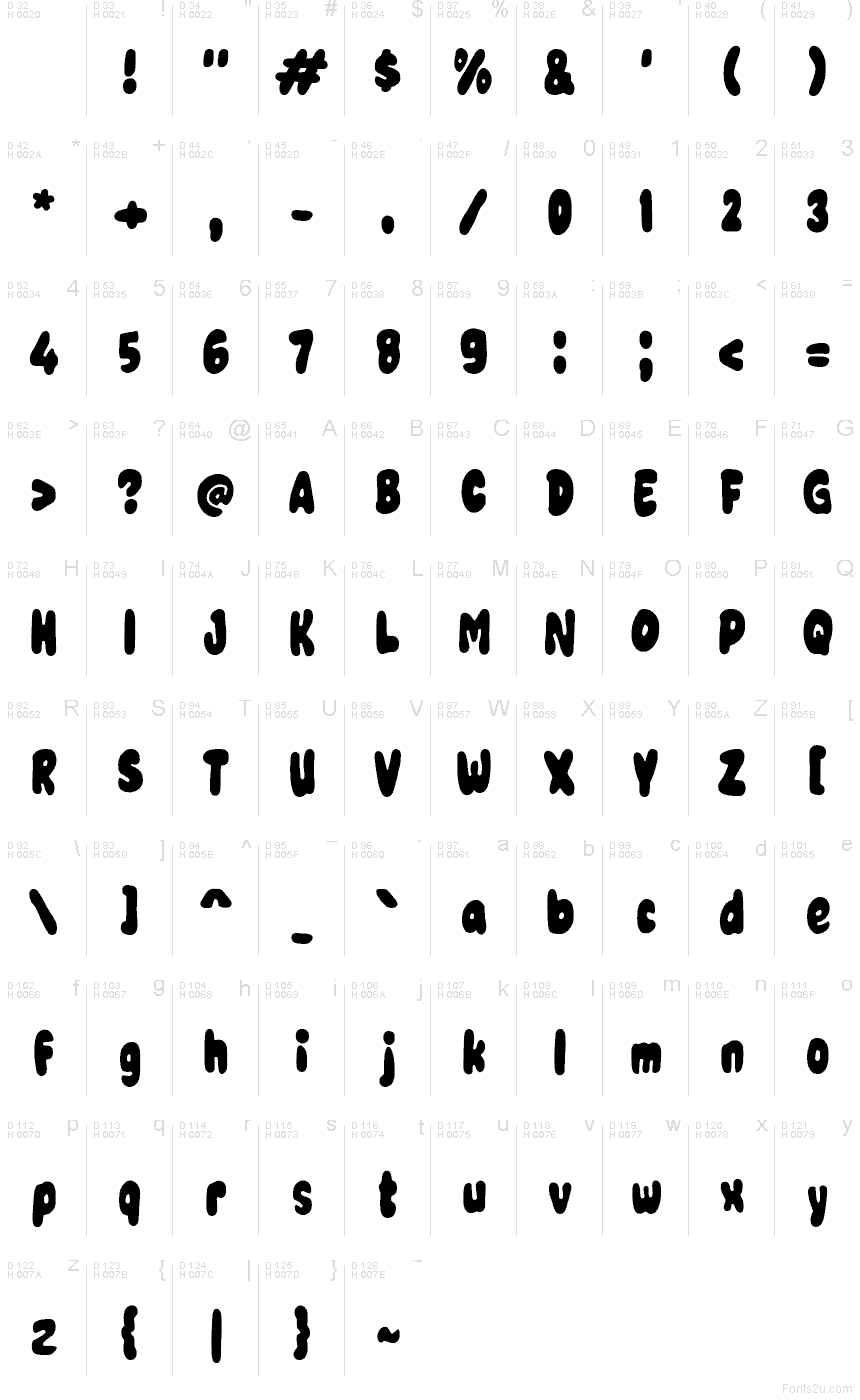
Xaaboo
Xaaboo font by wepfont.com is a free cartoon display typeface that looks like it’s been puffed up with air and cut from inky black foam. Each letter is chunky, rounded, and slightly uneven, giving words a bouncy, hand-made energy that feels friendly and loud at the same time. The tight rhythm between characters keeps even wild headlines readable, while the soft, blobby shapes make everything feel fun, squishy, and approachable.
Using Xaaboo, your titles instantly feel like they belong on kids’ book covers, birthday invitations, playful game logos, YouTube thumbnails, toy packaging, or classroom posters. This free font shines when used big and bold, where its thick curves and compact spacing can really shout. Pair Xaaboo with a clean geometric sans for smaller text to balance all that bubbly personality without losing the cheerful mood.